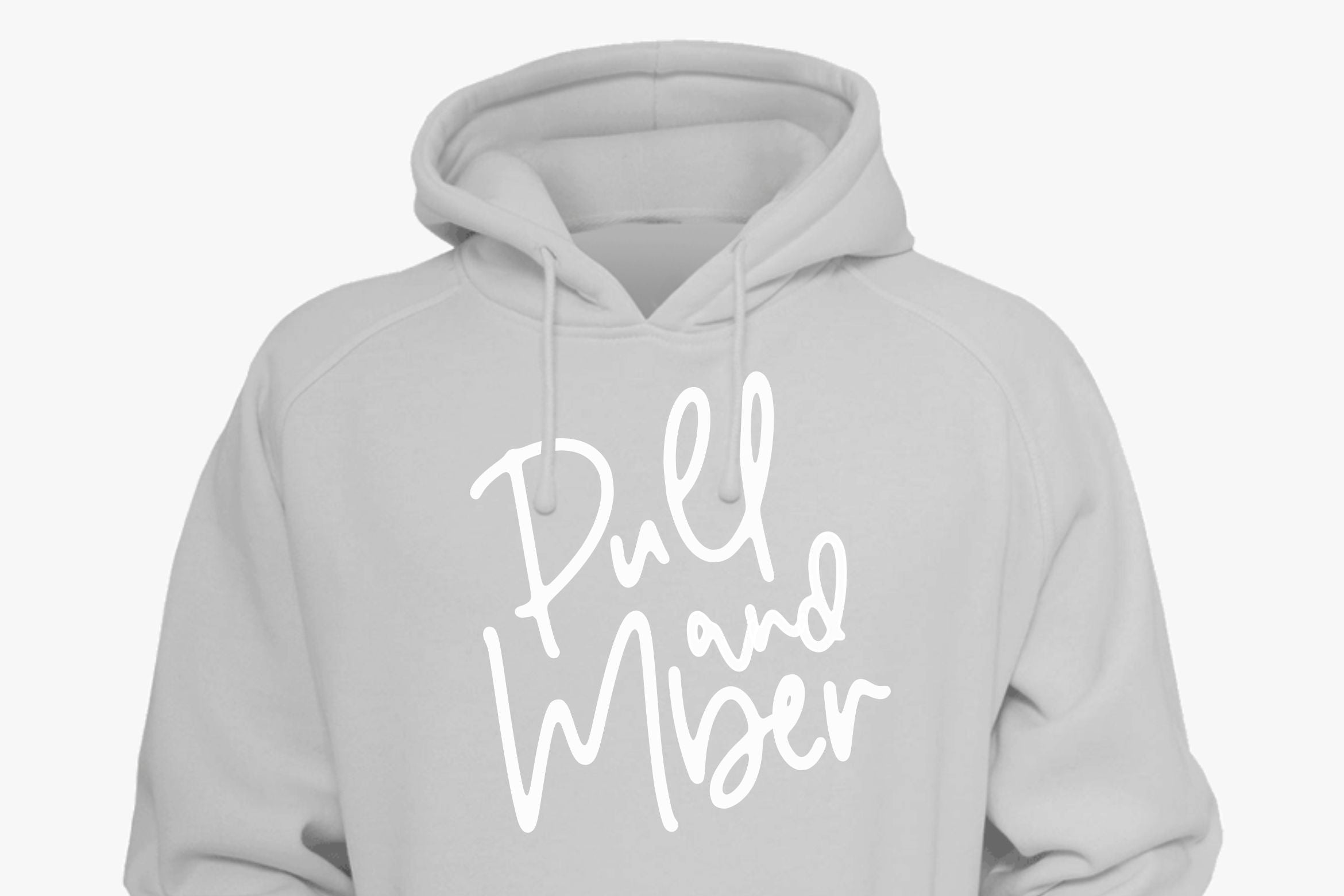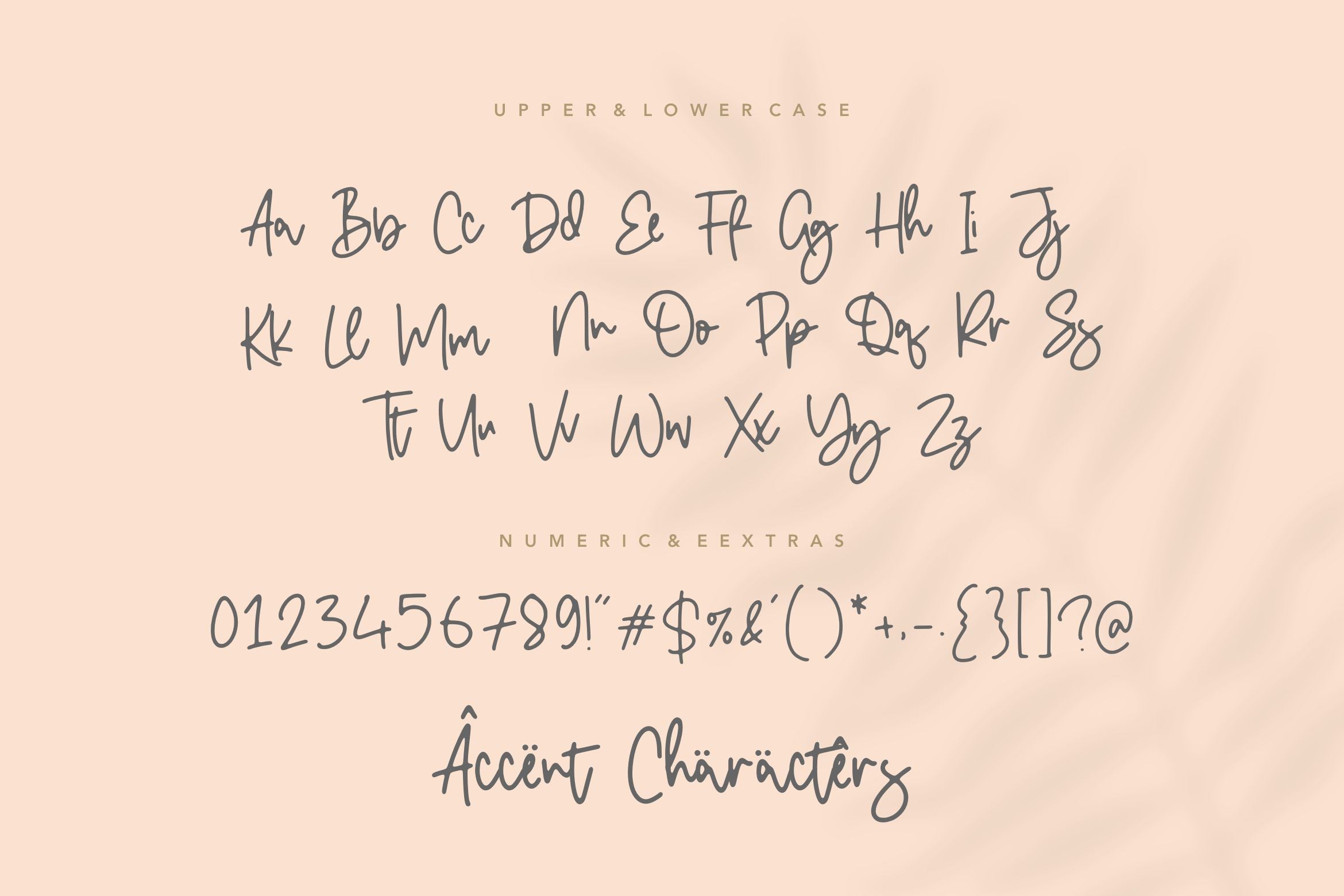
About Double Diamond Monoline Handwritten Font
Introducing by Letterative Studio : Double Diamond Font Double Diamond is a Monoline Handwritten Font Double Diamond is a cute and a bit quirky handwritten font. It is the best choice for creating eye catching logos, branding and quotes. Every letter has a unique and beautiful touch, which will make your design come alive! This font includes : TTF and OTF Double Diamond also multilingual support Enjoy the font! Feel free to comment or feedback Send me PM or email Thank you!